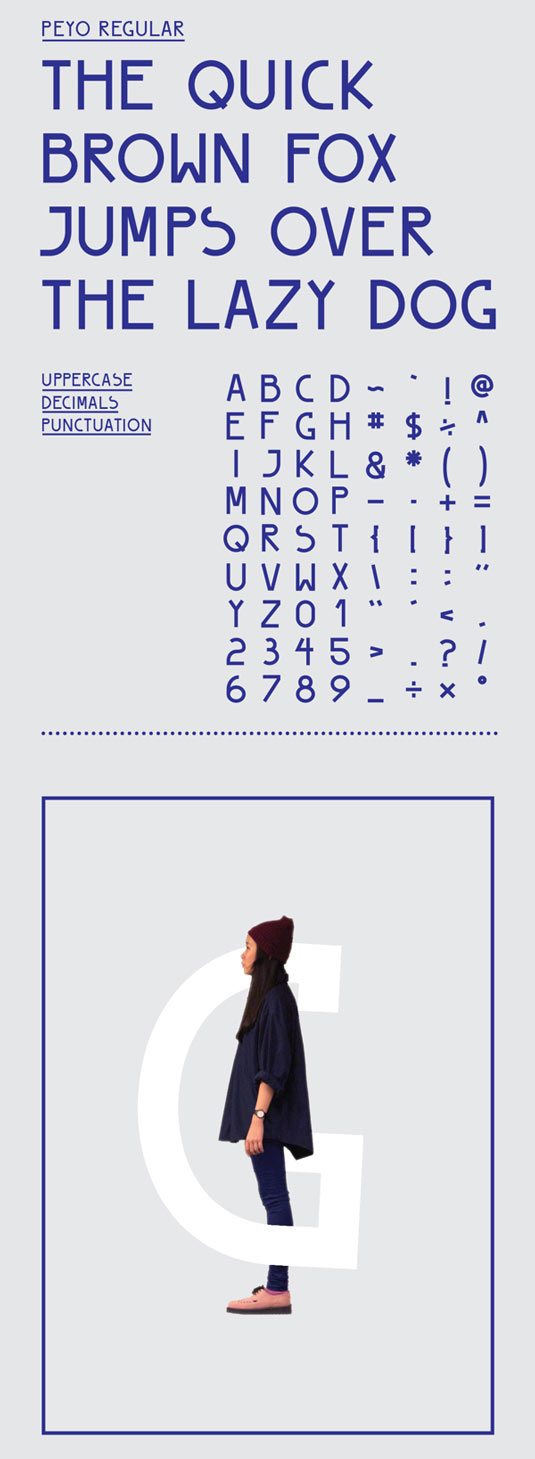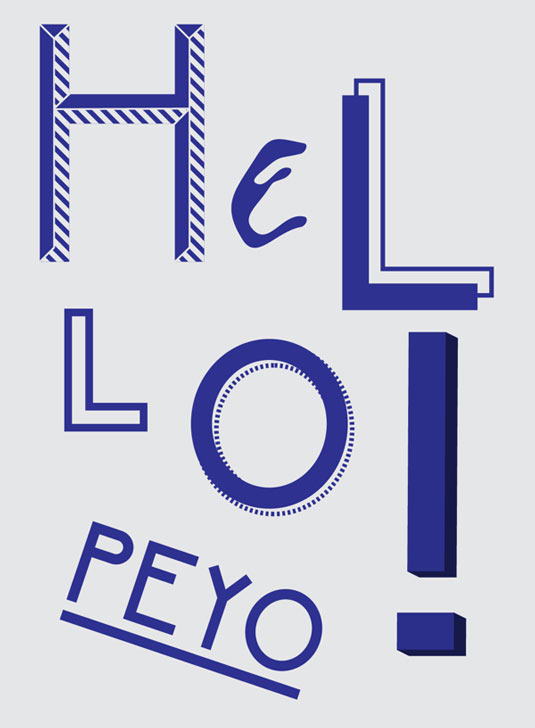
Font of the day: PEYO
PEYO by Shannon Lim
PEYO Regular is graphic designer Shannon Lim's first ever font. She describes it as "a playful, uppercase, geometric sans-serif typeface, designed for display type uses, such as headlines, posters, and titles".